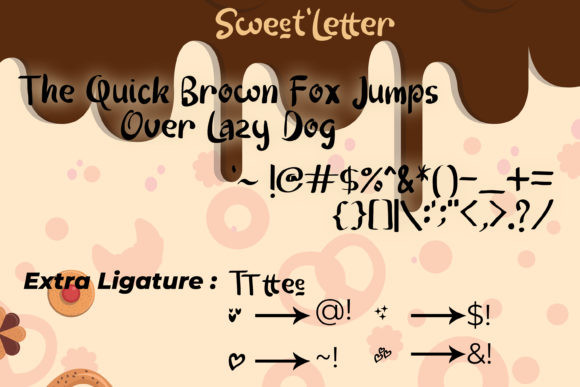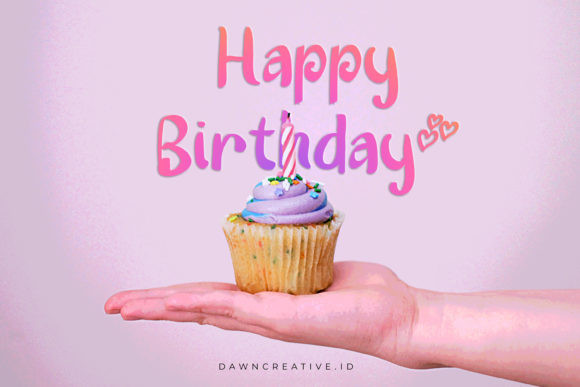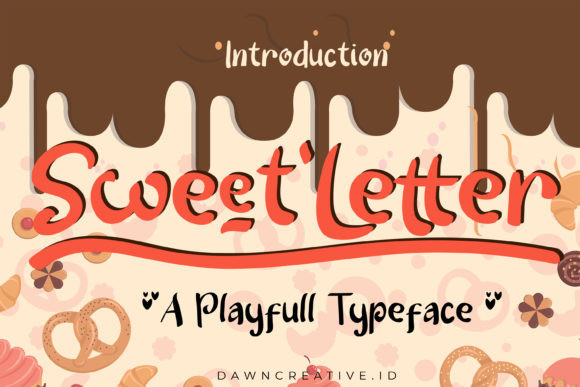
Sweet Letter Font
Sweet Letter is an awfully sweet and delicious display font with a cute and adorable charm! It will turn any design project into a true stand out.